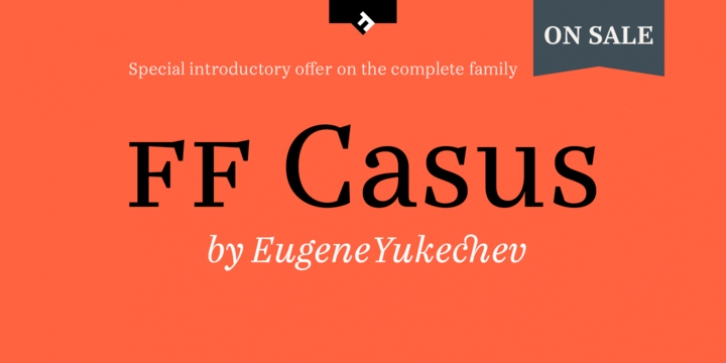
FF Casus was drawn for print – but is also a natural for textual content in interactive design. It brings warmth and a subtle, handcrafted quality to pages in books and periodicals as well as banners and informational copy on large and small screens. It pairs flawlessly with a wide range of sans serif typefaces to create inviting and easy to read text copy.
Born in Novosibirsk, Russia, in 1980, Yukechev earned degrees in philology in addition to editorial and graphic design. He also graduated from the British Higher School of Design in Moscow, studying type and typographic design. Yukechev now runs the Moscow-based Publishing Schrift design studio and the publishes the online "Type Journal" with his colleagues.
Looking for something new – with the panache and warmth of an old book face? FF Casus may be the perfect choice.